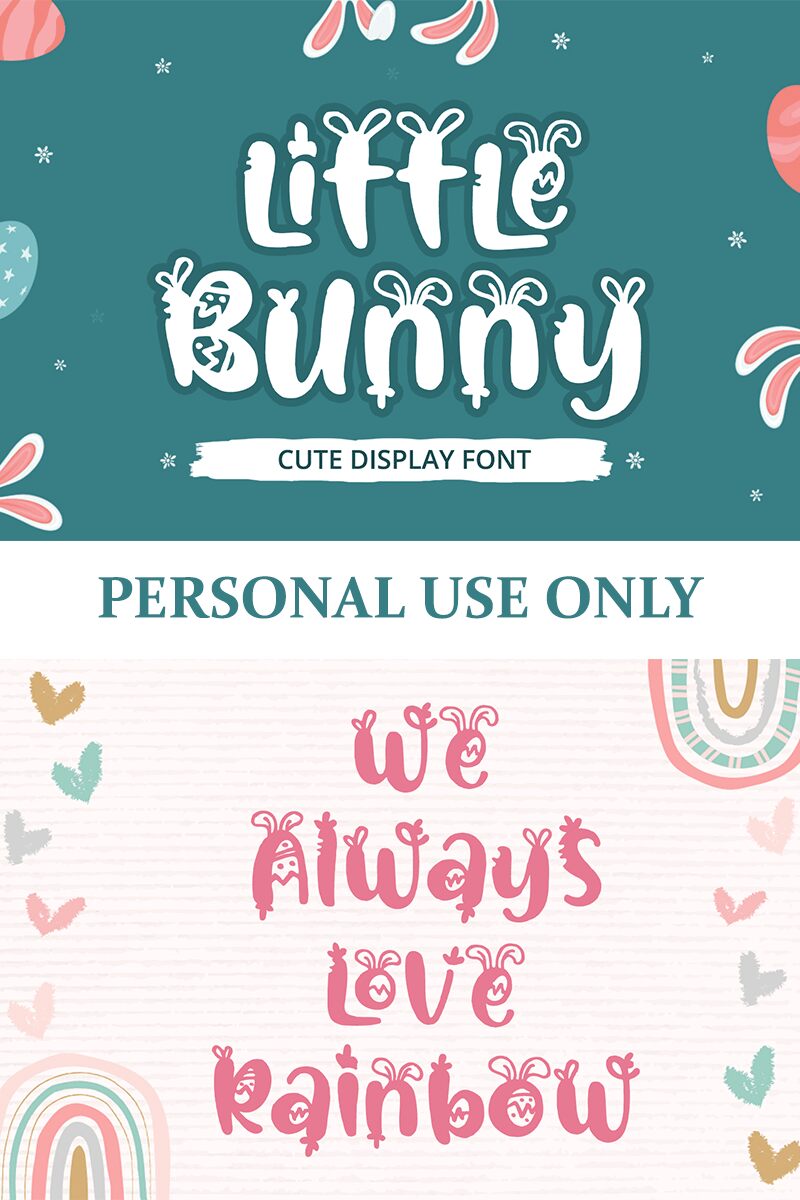
Meet Little Bunny, the playful and quirky display font designed by Alpaprana Studio. This bold typeface is perfect for any project that needs a touch of fun and whimsy. With its cute cartoon Easter style, Little Bunny is sure to bring a smile to your audience's face. Whether you're creating a children's book, designing an Easter greeting card, or crafting a logo for an animal-themed brand, this font will add character and charm to your work. Its bold weight makes it stand out on any medium, from print to digital. Let Little Bunny hop into your next creative endeavor and watch it come to life!